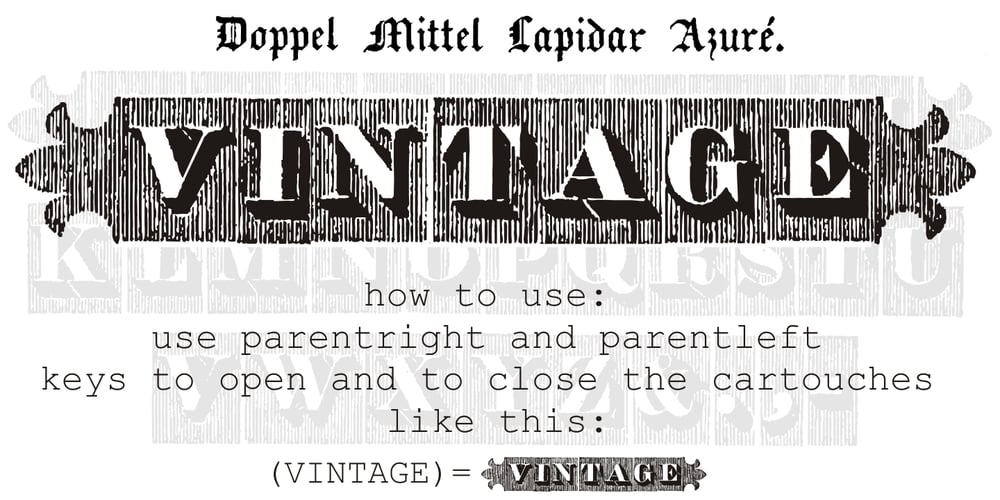
Doppel Mittel Lapidar Azure Font Family was designed by Paulo W and published by Intellecta Design. Doppel Mittel Lapidar Azure contains 1 styles and family package options. Doppel Mittel Lapidar Azure is a decorative display font great for large header-like usage. A classic font design remastered by the type foundry Intellecta Design, inspired by wood types from the XIX century.